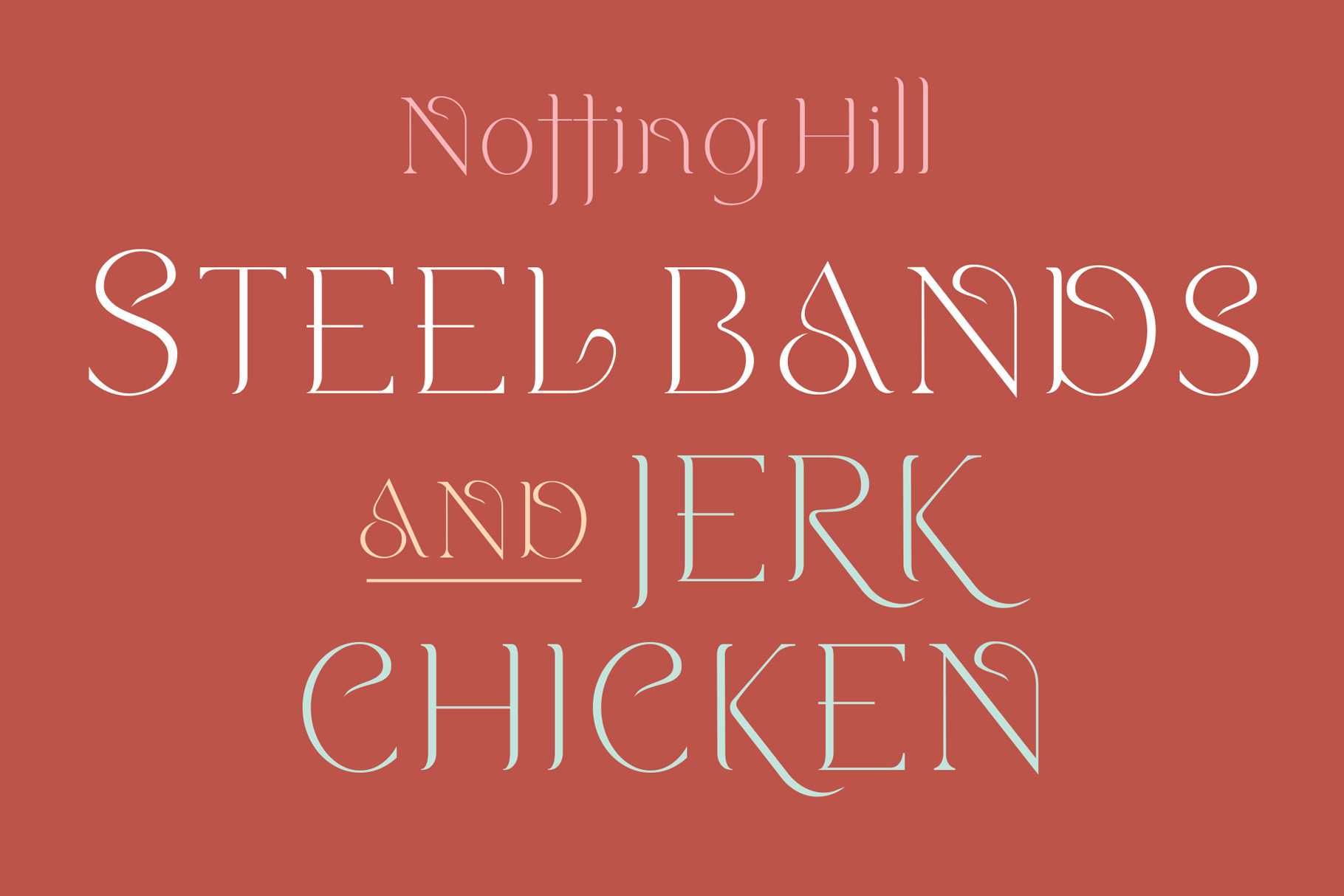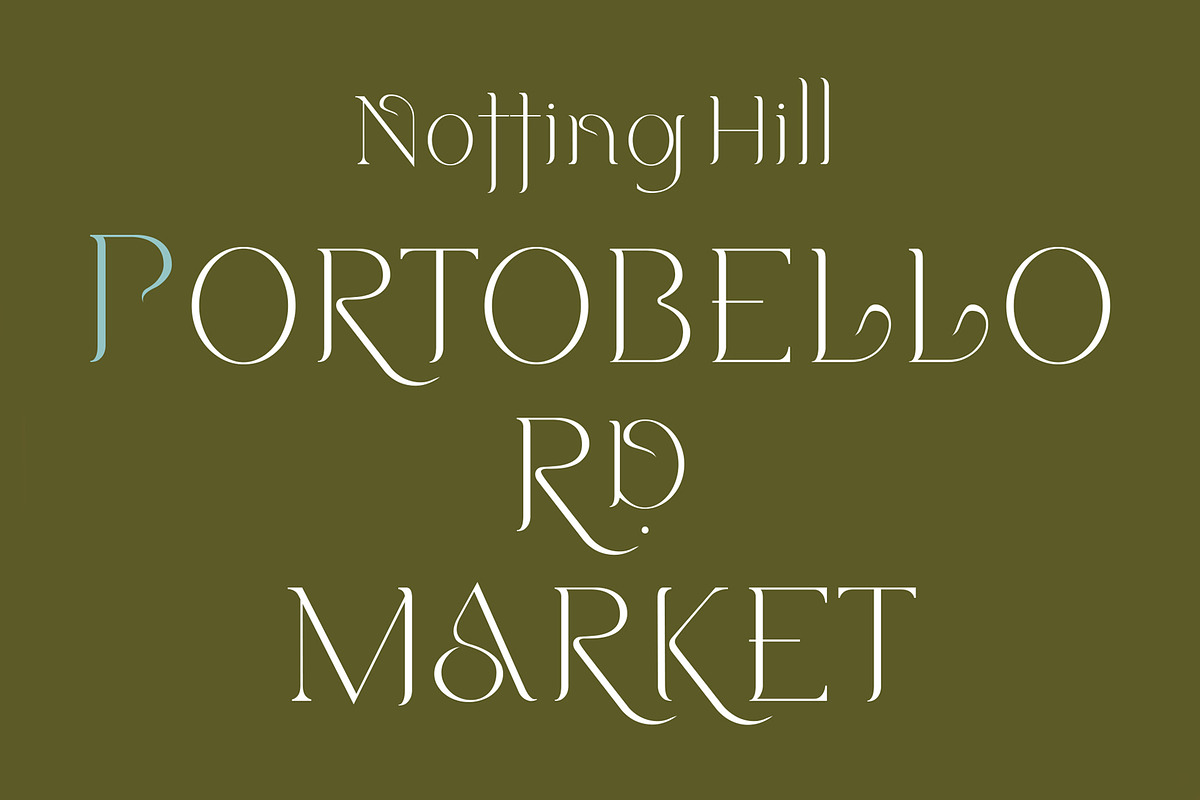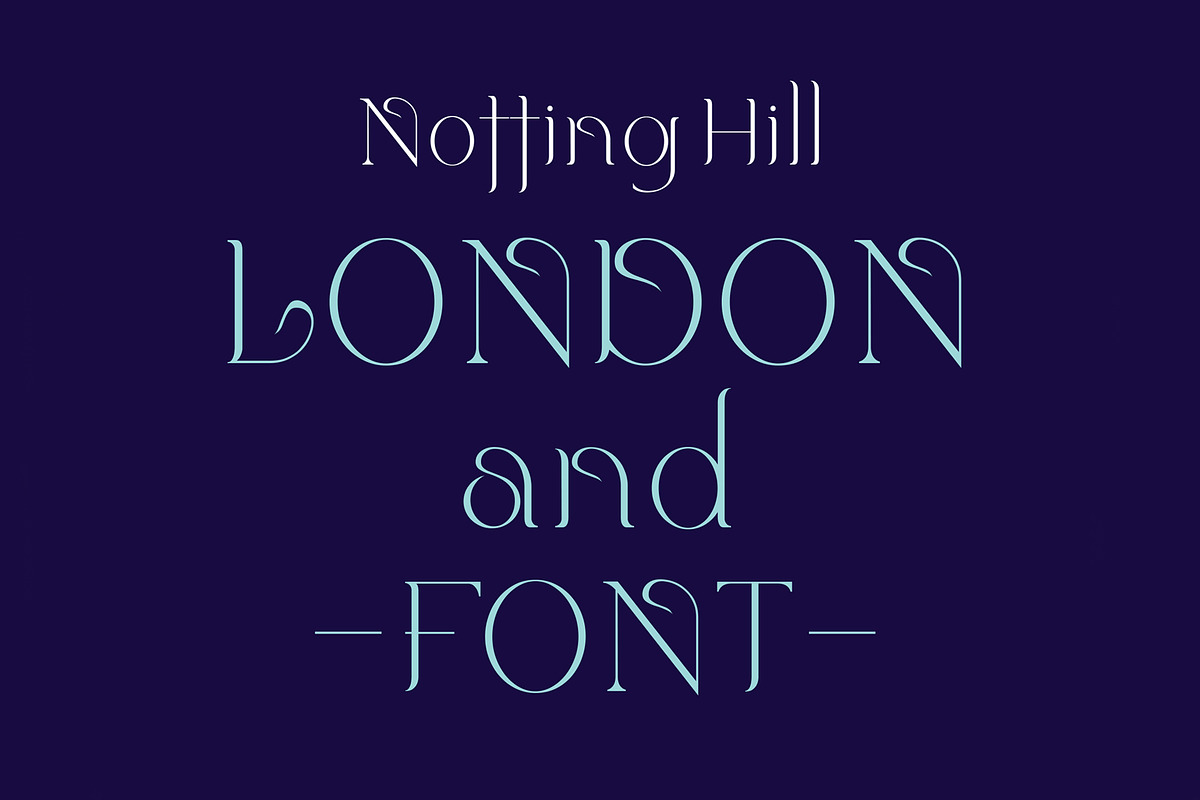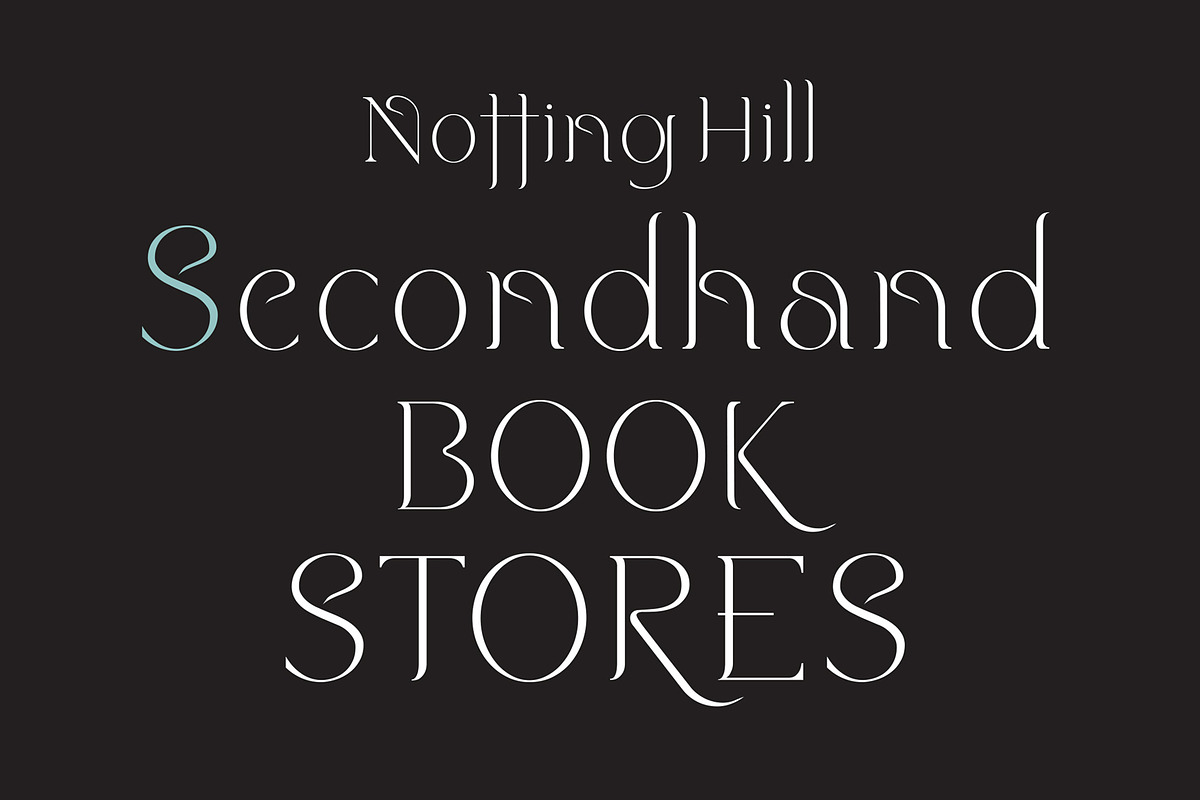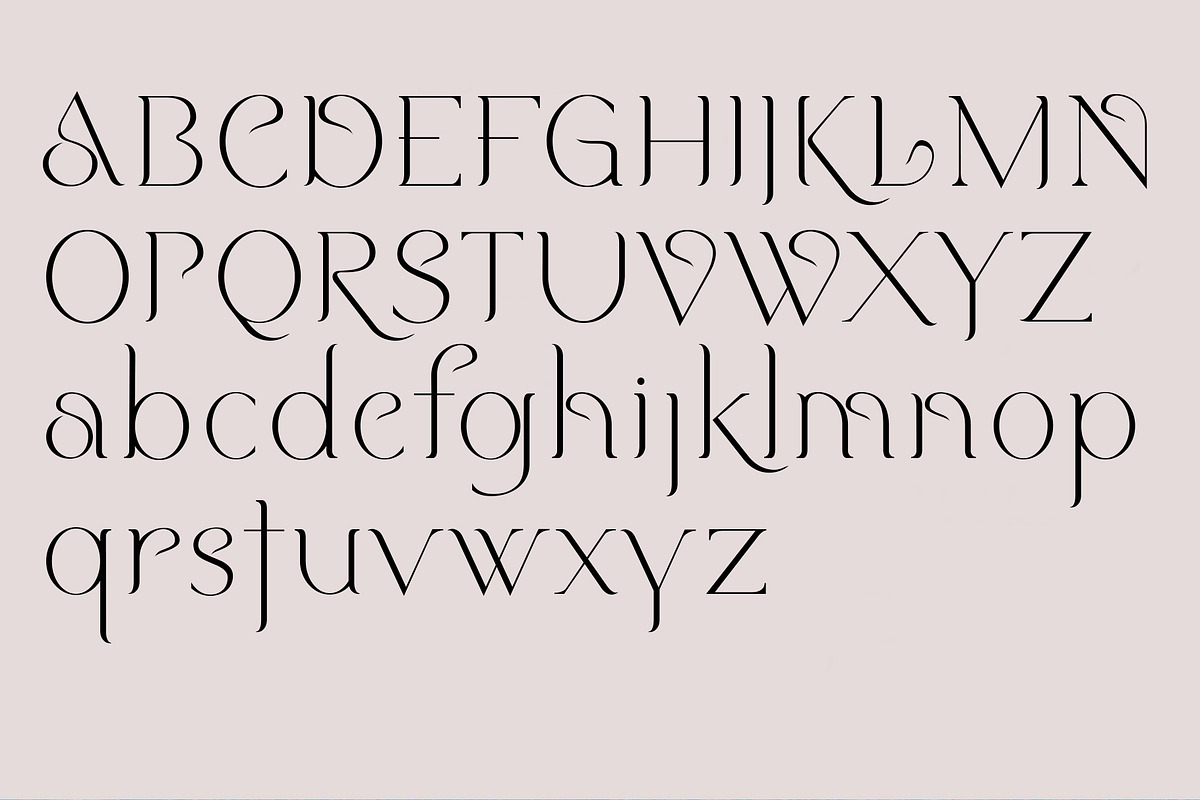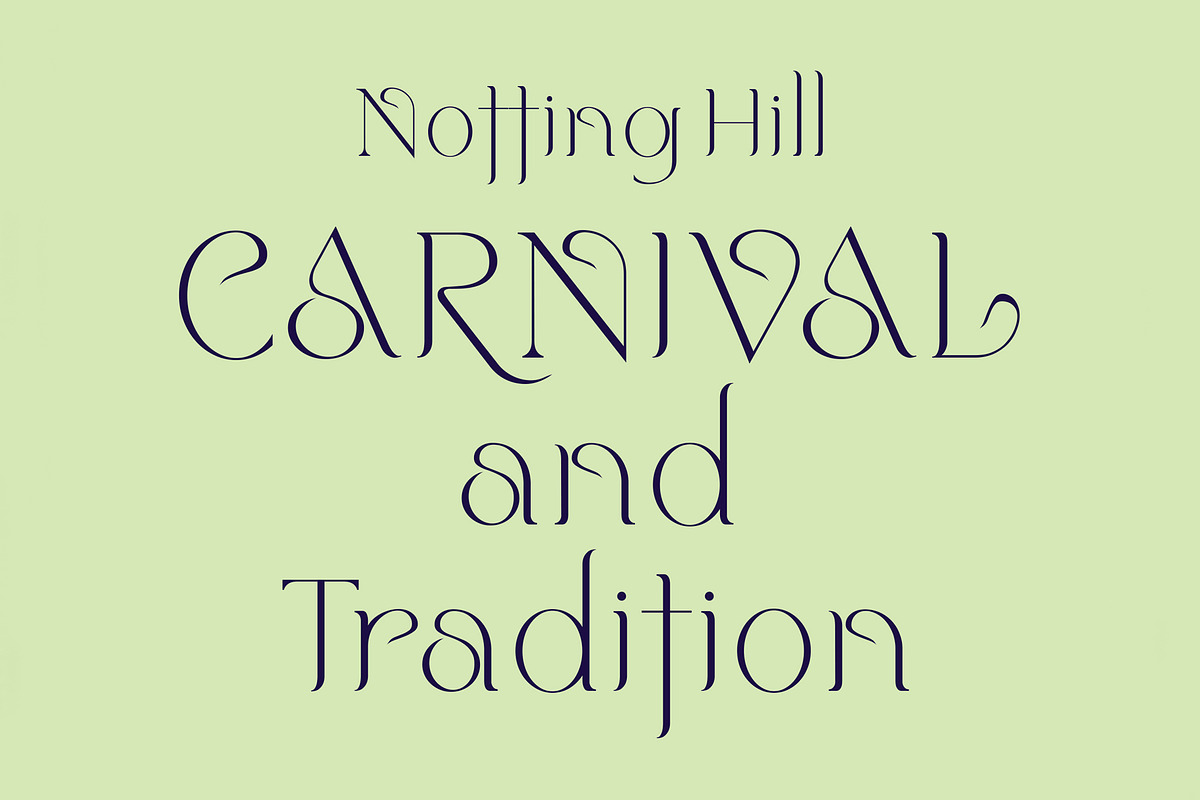
Notting Hill. Stylish new serif font
Notting Hill is a stylish, chic, yet modern serif font, inspired by the famous London Borough. Like the place, Notting Hill the font embraces flair and flamboyance. Drawing subtle inspiration from the annual Carnival, Portobello Road Market and its rich history as a hub for artists.
I have given this font enough design twists to give it real character and identity, making it a perfect serif font choice for many of your print and online design projects.
If you’re tired of the same old serif fonts, then Notting Hill will make a welcome addition to your serif font catalogue. You can use Notting Hill in print - in branding, wedding designs, packaging designs, logos and on posters. And it’s equally as stunning used online in websites, blogs, Youtube creator titles and social media post titles.
Notting Hill comes in 2 weights and supports many European languages.